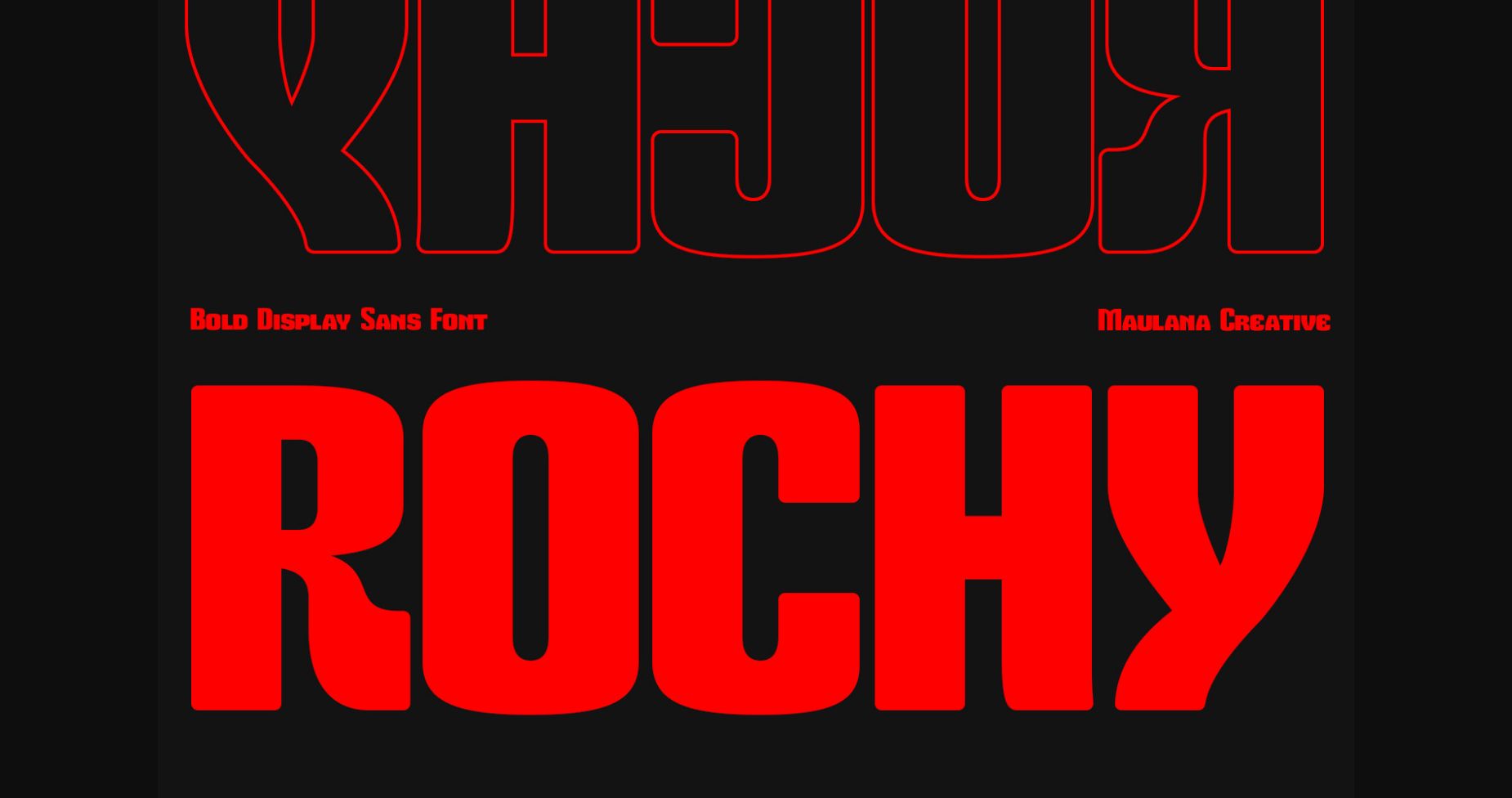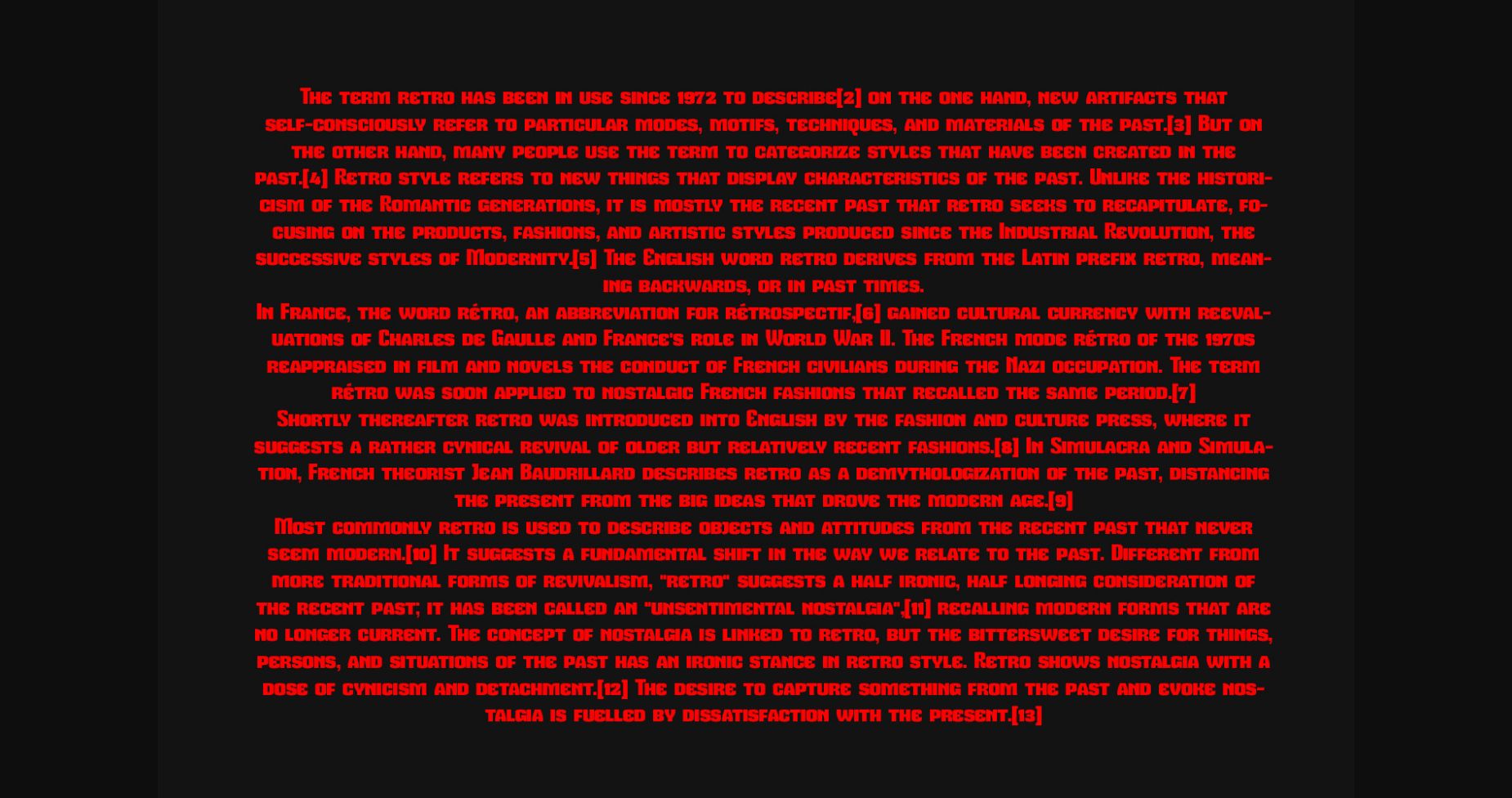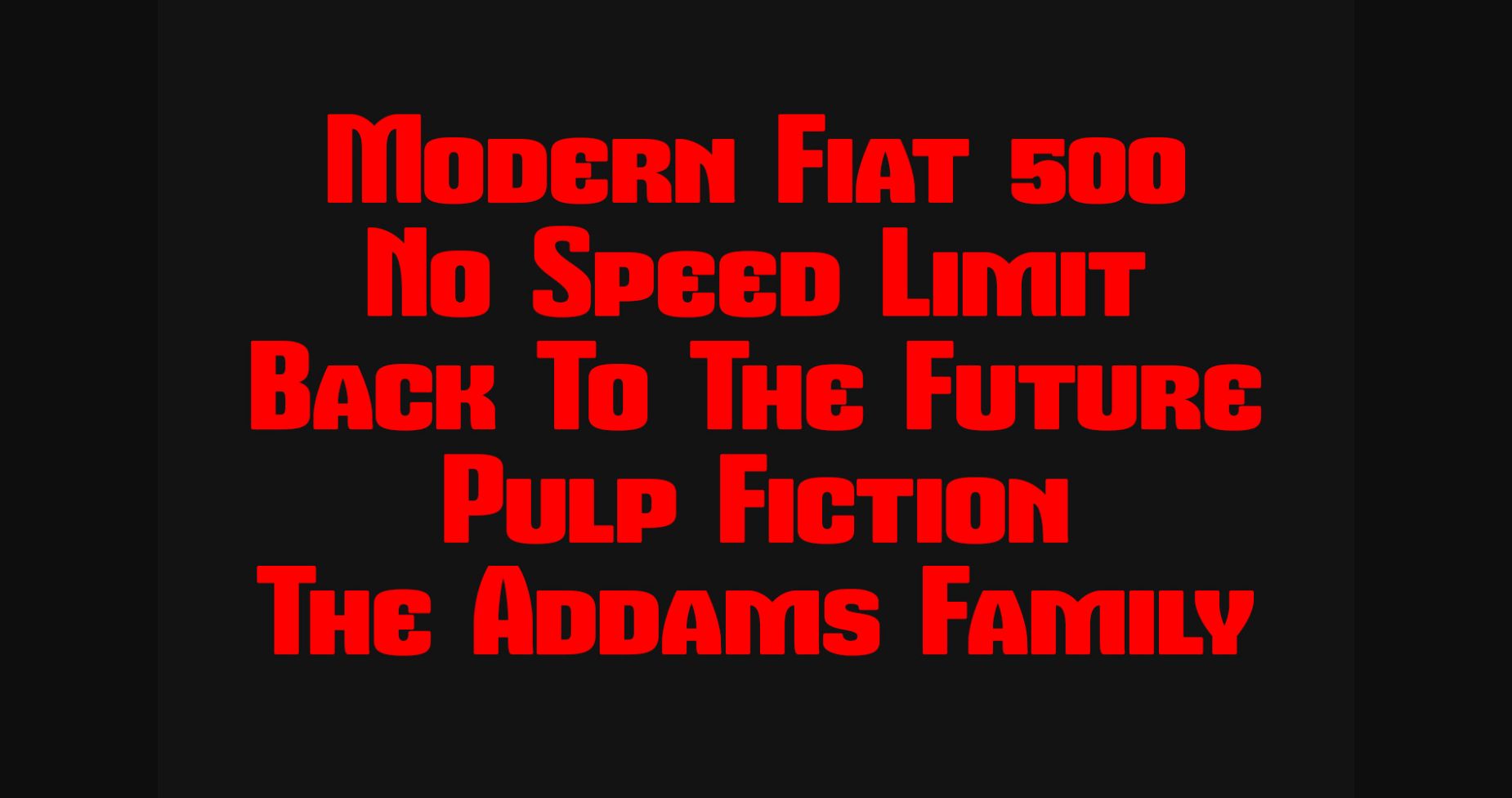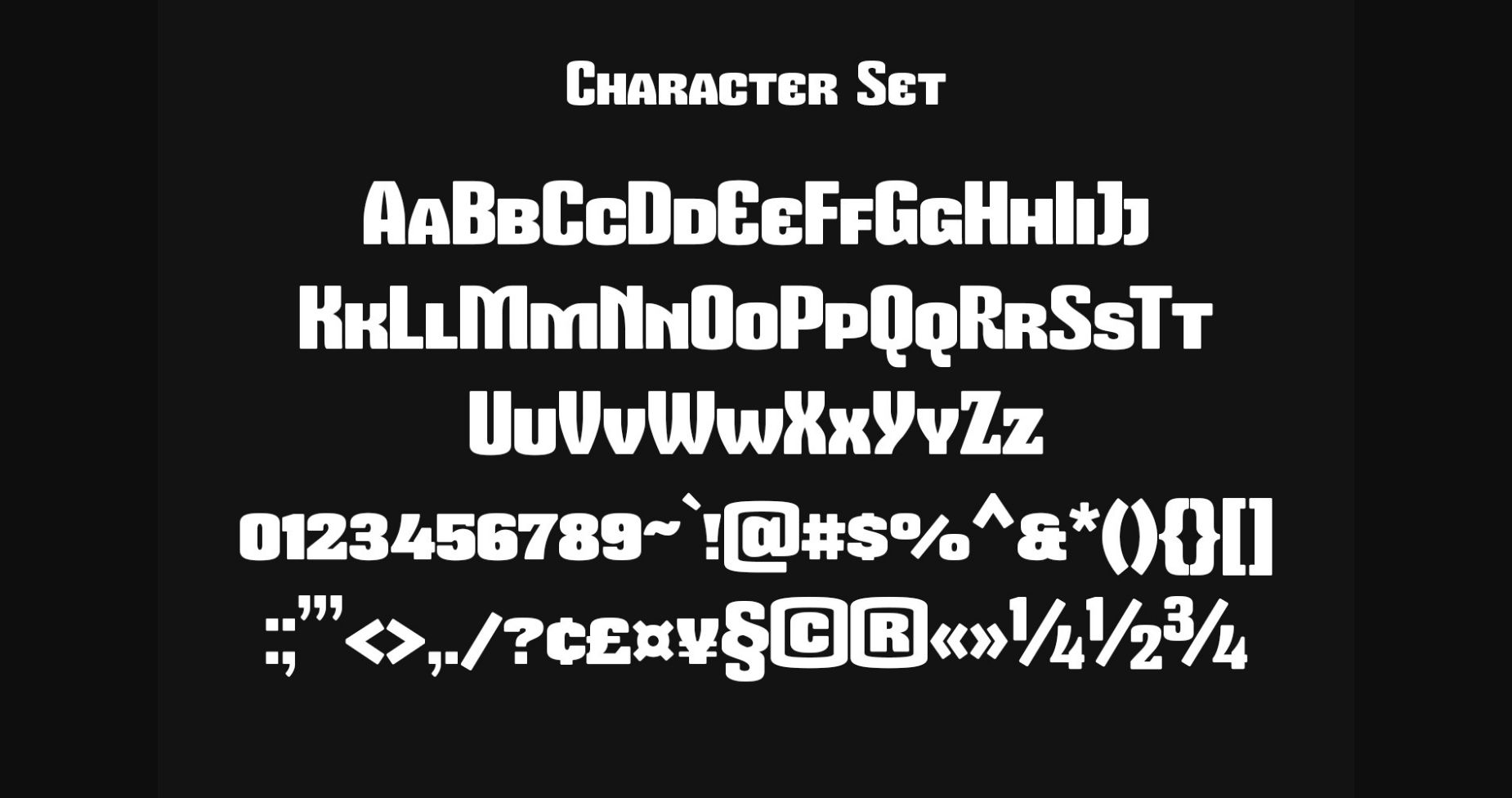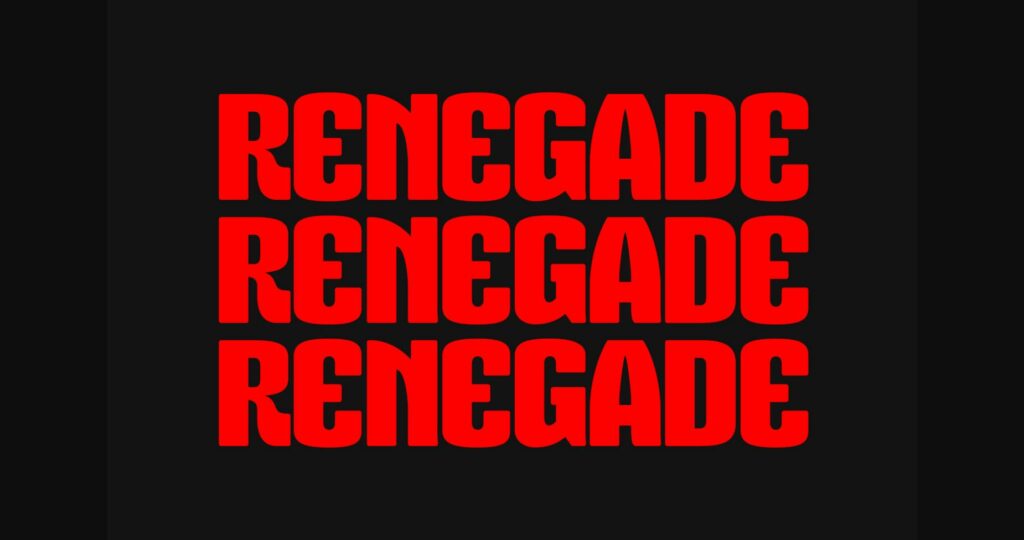
Rochy Font
About Rochy Font
Rochy is a 70’s retro display font. It has a cool and whimsical style and it will undoubtedly immerse your designs into a magical world.